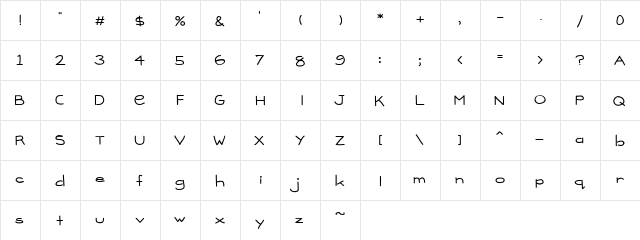
Madison Regular Font Preview
Madison Regular
Madison Regular Font Details
| Foundry | [typologic] |
| Designer | [typologic] |
Design Context for Madison Typeface
Madison takes a measured approach to typography — its balanced proportions and neutral character make it a reliable workhorse for both digital and print work.